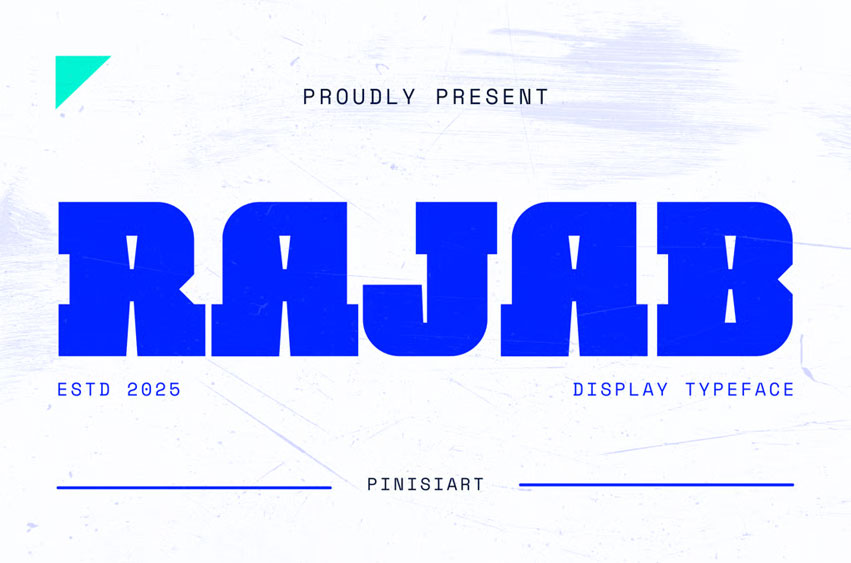
Rajab Font is a bold geometric display typeface that brings raw energy and powerful contrast into every letterform. With its squared structure, chunky proportions, and solid industrial vibe, it feels both modern and timeless. Perfect for designers seeking a type that defines authority and presence, RAJAB thrives in editorials, posters, music covers, and fashion branding where impact matters most.
When you need typography that grabs attention at first glance, RAJAB delivers. Its heavy forms and sharp terminals create visual dominance, making it ideal for branding campaigns, album artwork, gaming titles, editorial spreads, and social media content. This typeface doesn’t whisper—it speaks loudly, projecting confidence and creativity that resonates with bold brands and daring designers.
• Bold Geometric Build – delivers a strong, defined look.
• Massive Impact – designed for titles, covers, and marketing.
• Expressive Letterforms – mix of sharp edges and firm proportions.
• Versatile Contexts – works in posters, fashion editorials, gaming, and lifestyle branding.
• Modern Edge – fits digital platforms while holding timeless appeal.